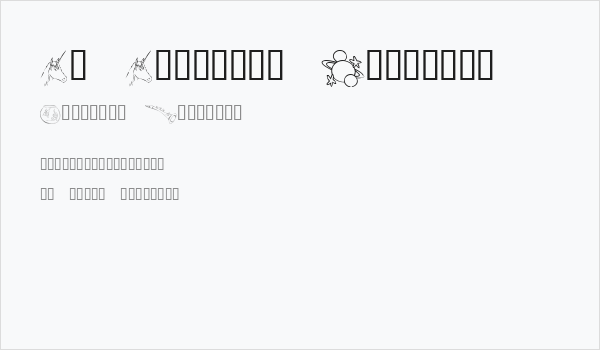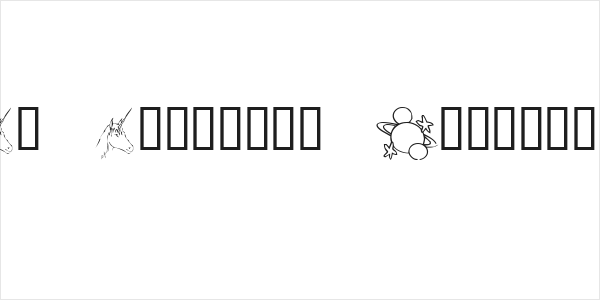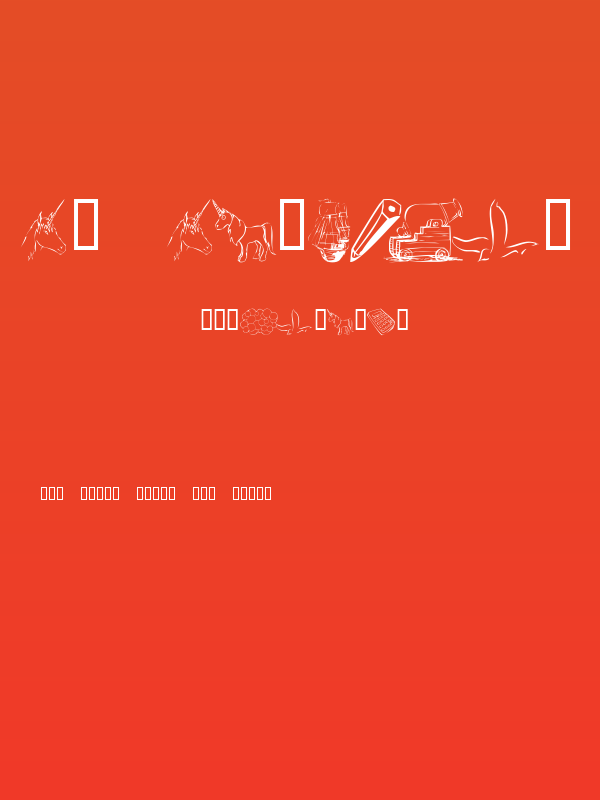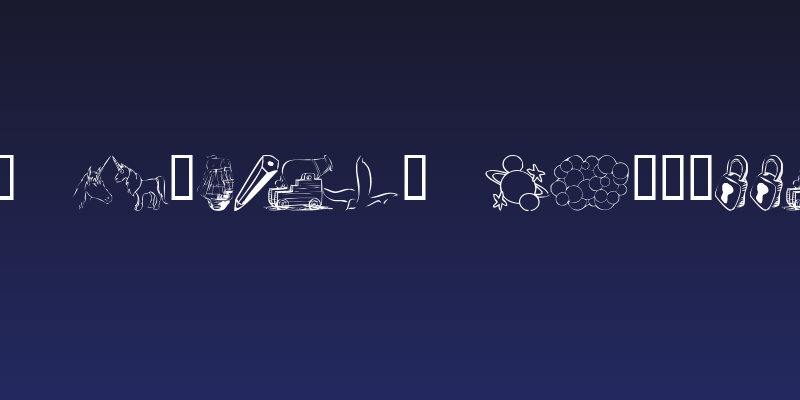
KR Katlings Fourteen Font
KR Katlings Fourteen Description
A whimsical decorative font featuring hand-drawn illustrations such as unicorns, waves, locks, balloons, cannons, and other playful objects in place of standard alphanumeric characters. The style is sketch-like with varying line weights and a cartoonish, imaginative feel.
Overall StyleDecorative, Whimsical, Playful
Use CaseLogos, Headlines, Themed graphics, Invitations
Proposed ProjectsChildrenÒ€ℒs books, party invitations, greeting cards, playful branding, educational materials.